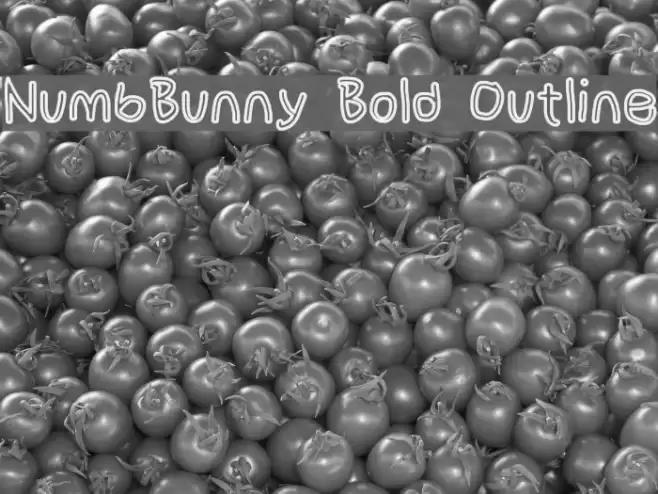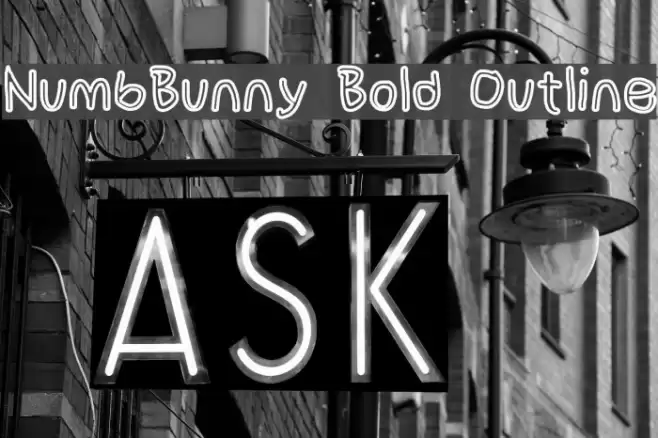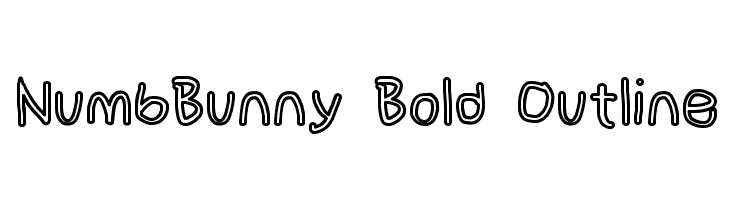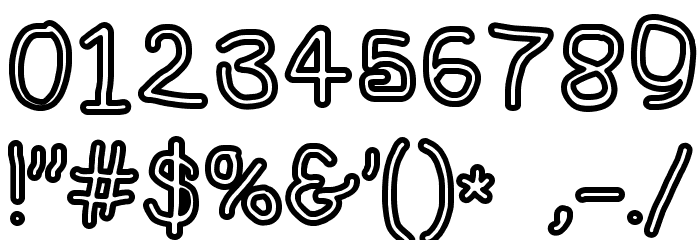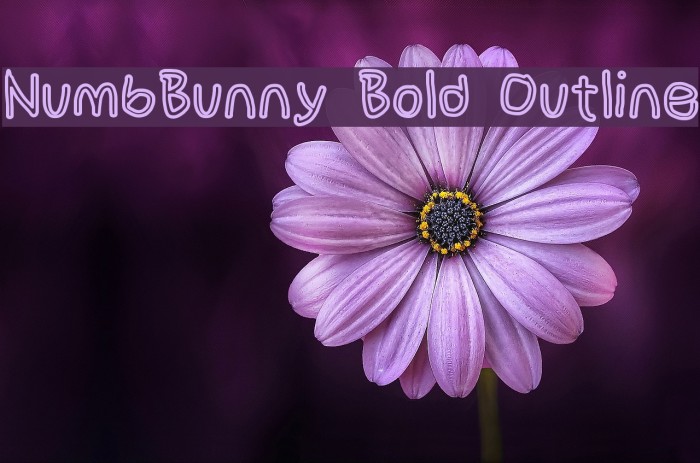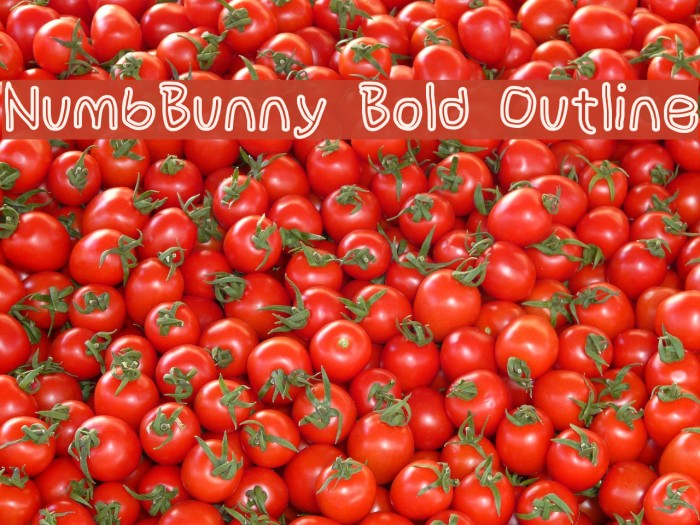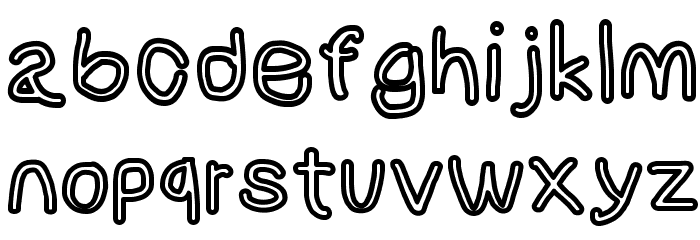
NumbBunny Bold Outline Font
NumbBunny Bold Outline Description
This playful and bold font features an outline style that gives each character a distinct and lively appearance. The letters are rounded and slightly irregular, adding a whimsical and informal touch. The uppercase and lowercase letters maintain a consistent style, with a uniform thickness in the outlines. The numbers and special characters follow the same design principles, ensuring a cohesive look across all elements. This font is perfect for projects that require a fun and engaging aesthetic, such as children's books, playful branding, or creative posters.
A playful, bold outline font with rounded, whimsical characters from Handwritten fonts.
- Proposed Projects: Ideal for children's books, playful branding, creative posters, and informal invitations.
- Overall Style: Playful